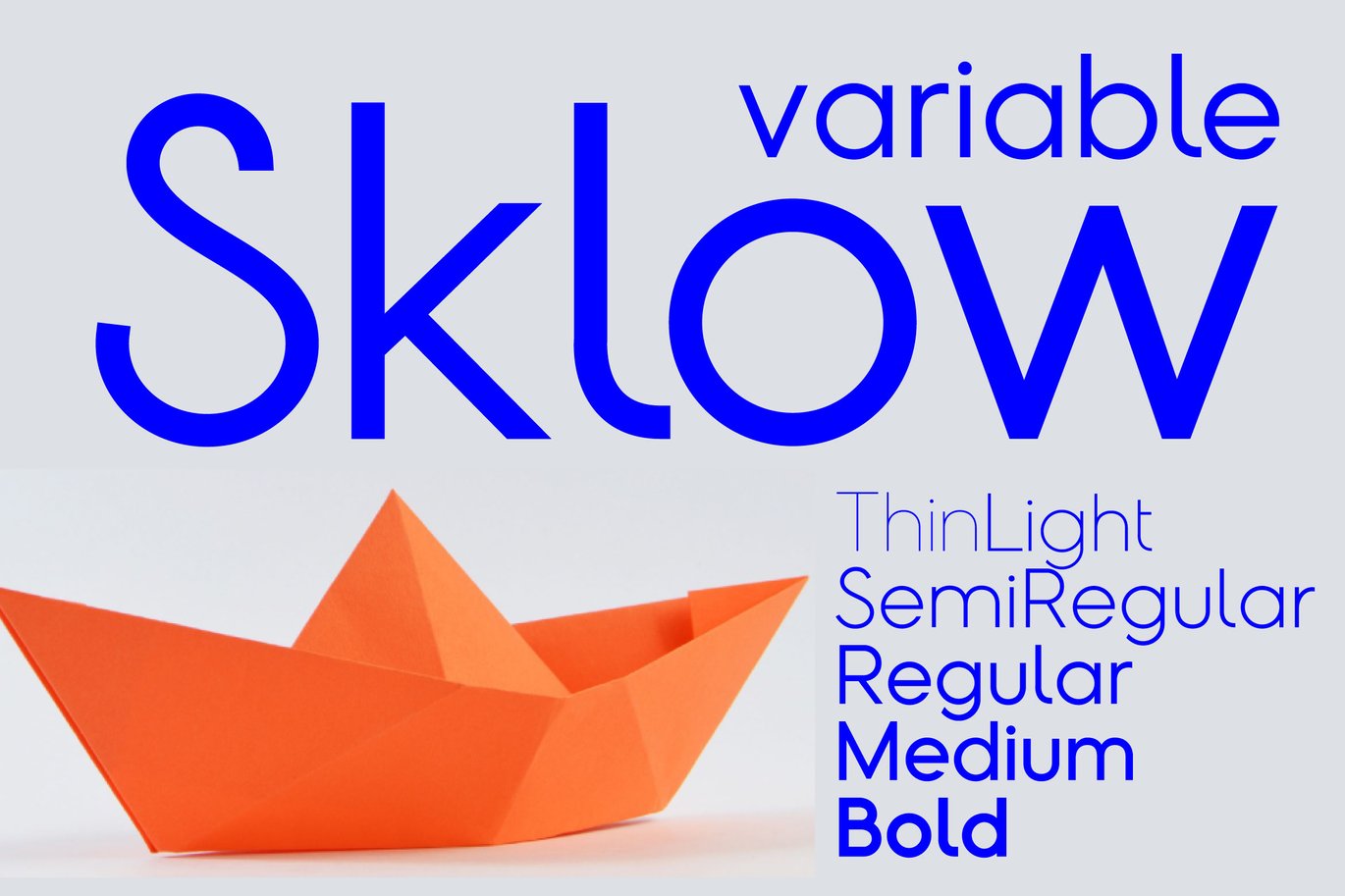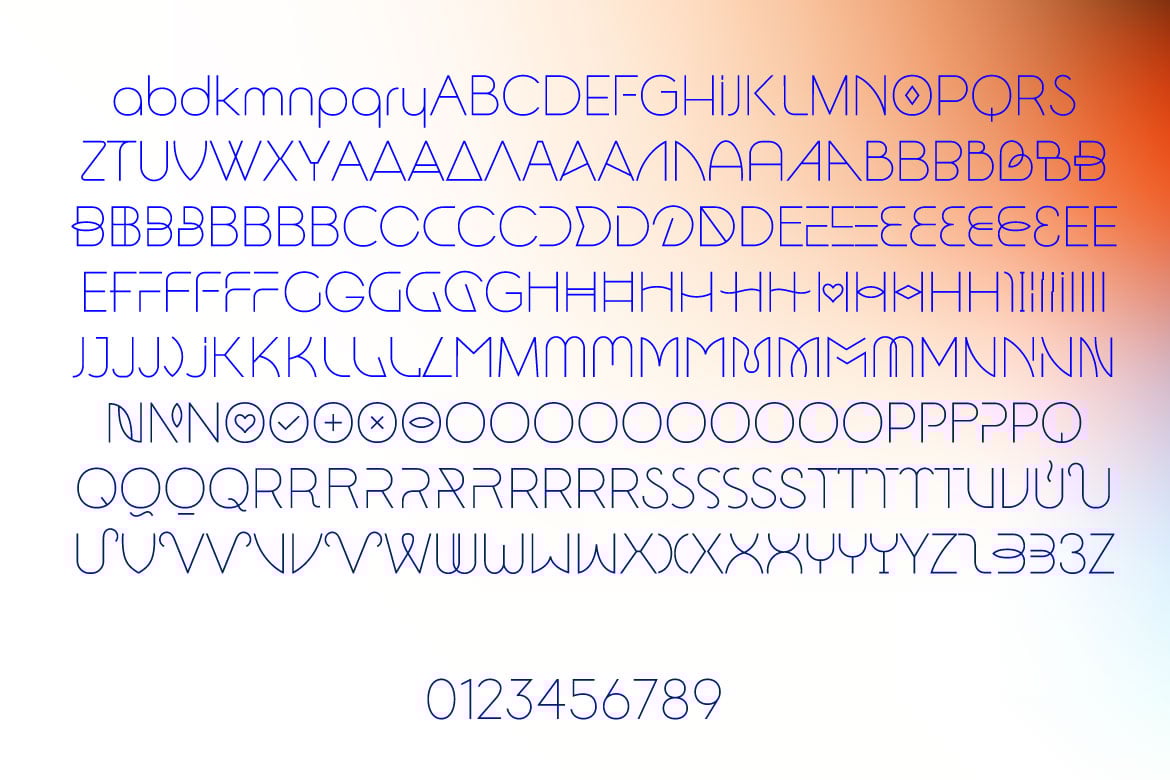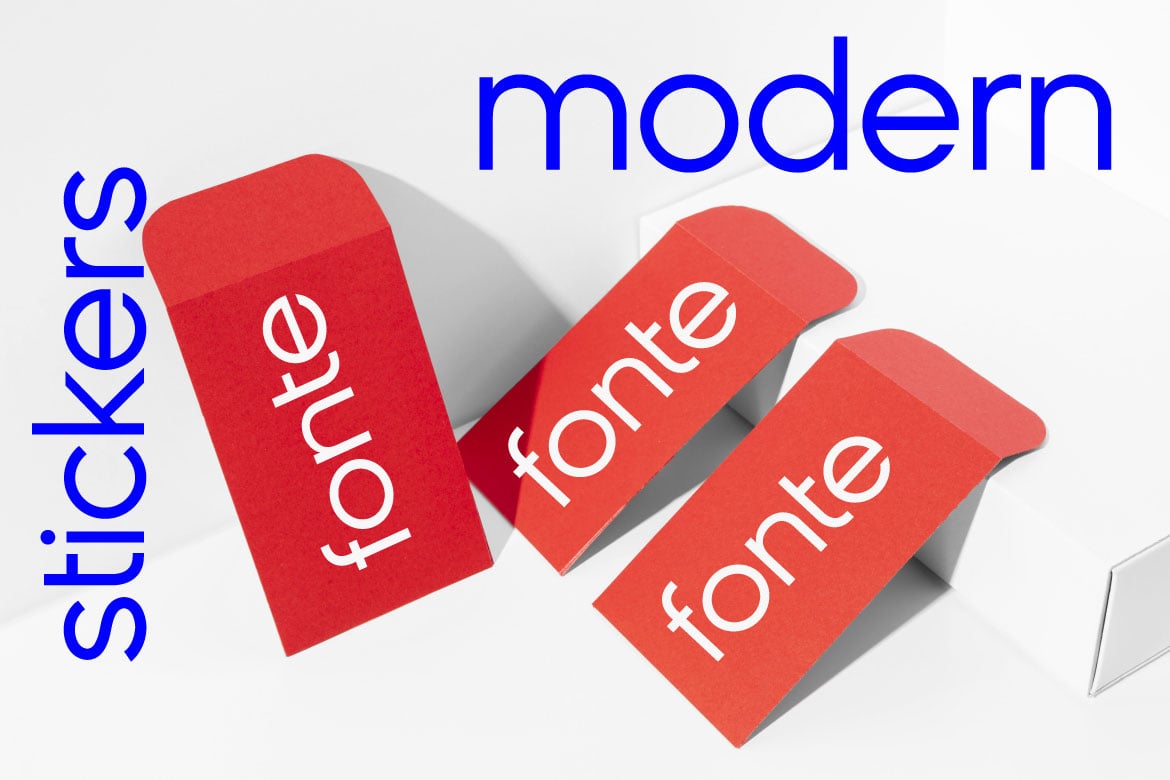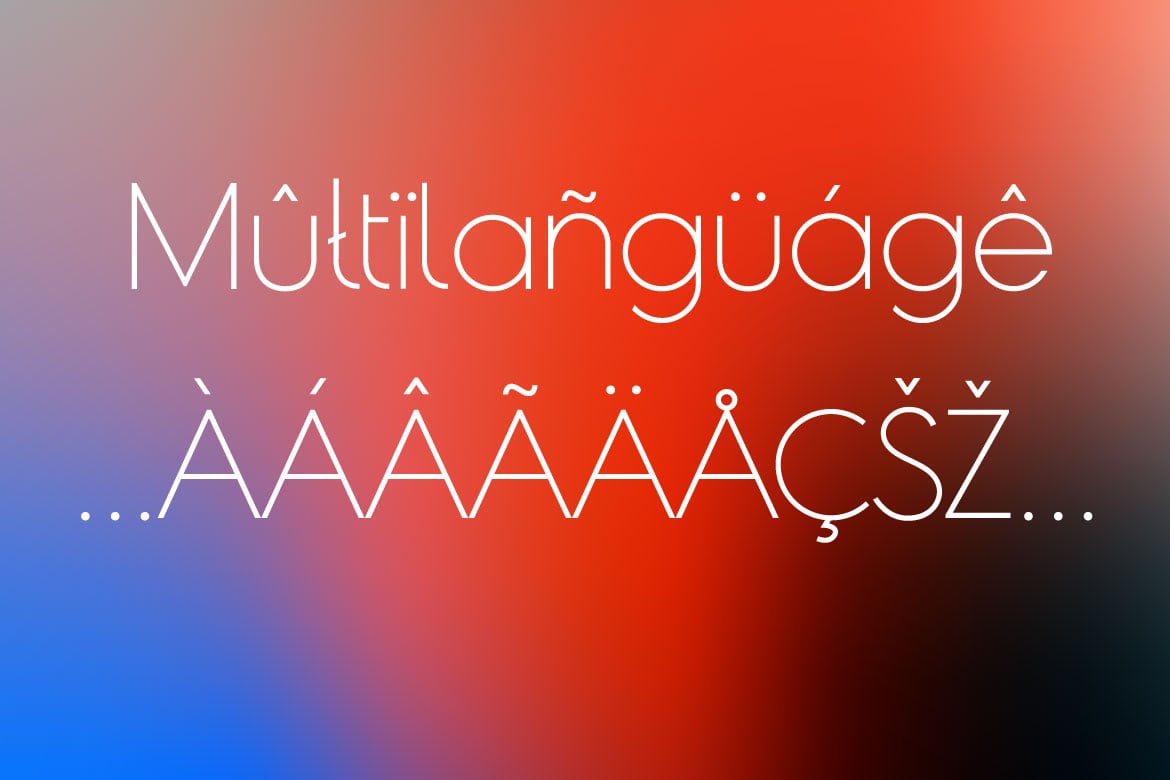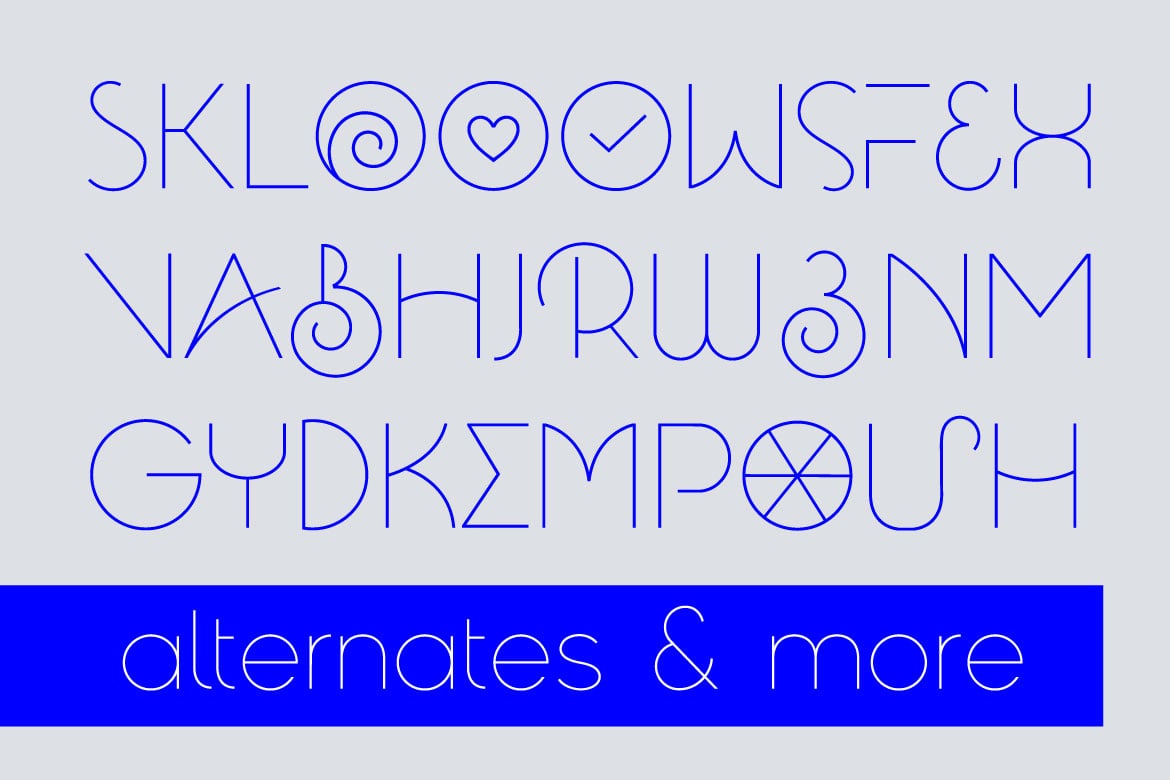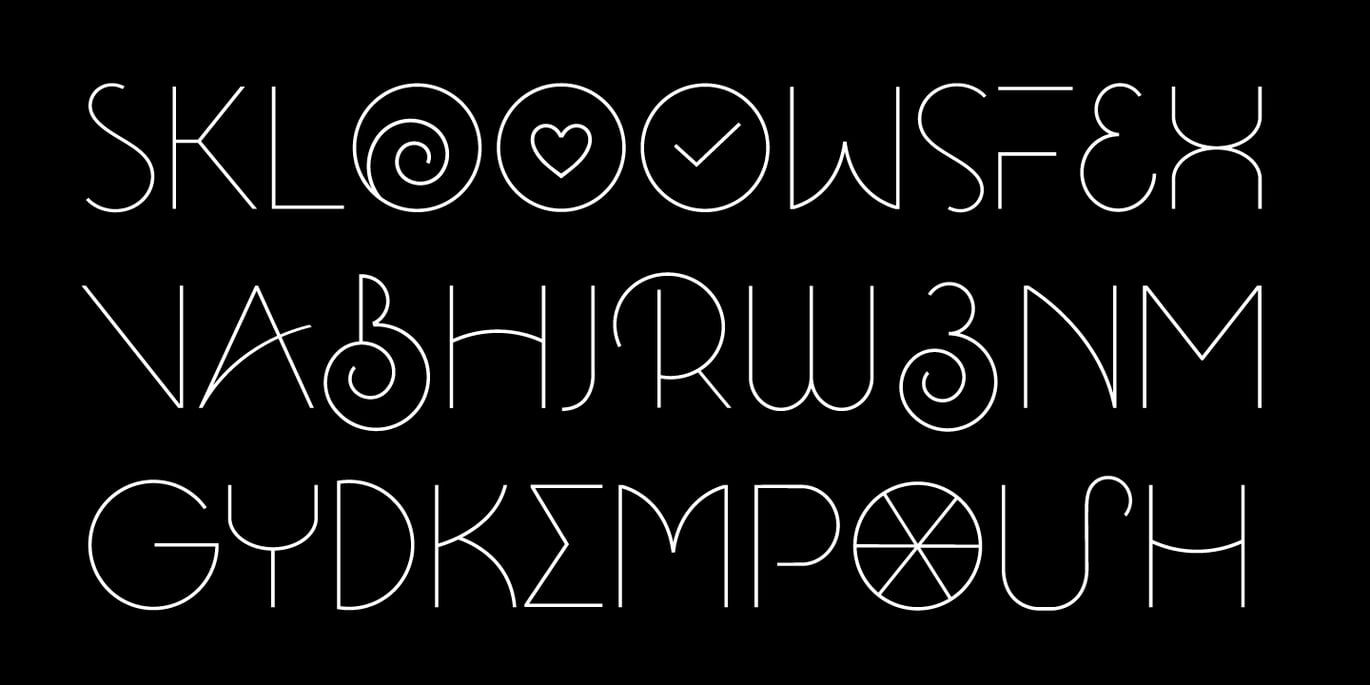
Sklow Sans Serif font
Sklow is a modern sans serif font with a sleek and minimalist design that’s perfect for a variety of design projects. With its clean lines and balanced proportions, Sklow is both versatile and functional, making it a great choice for branding, editorial design, and web design. Sklow also comes with a set of alternate characters, giving you even more creative freedom to customize your designs. The alternates offer a variety of unique letterforms that add personality and charm to your projects, while still maintaining the simplicity and legibility that make Sklow such a great font. Whether you’re looking to create a professional and polished look, or a playful and whimsical design, Sklow with alternates has got you covered.